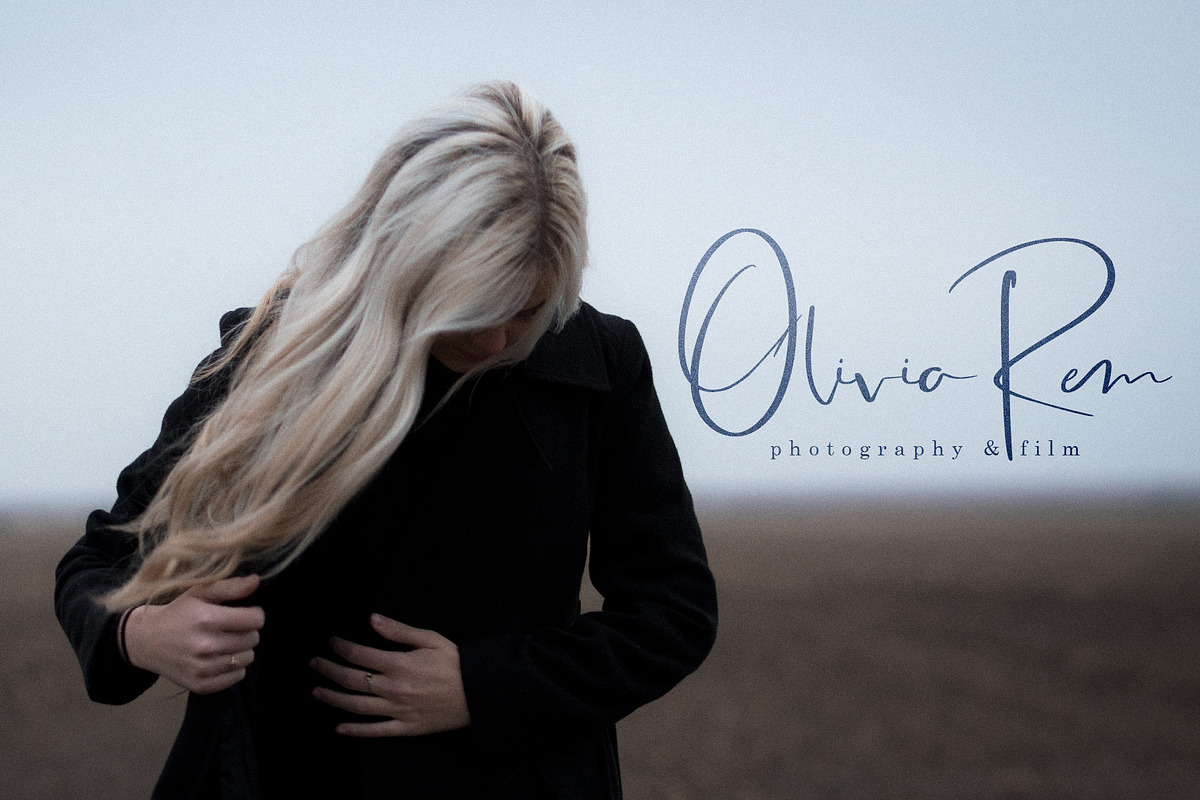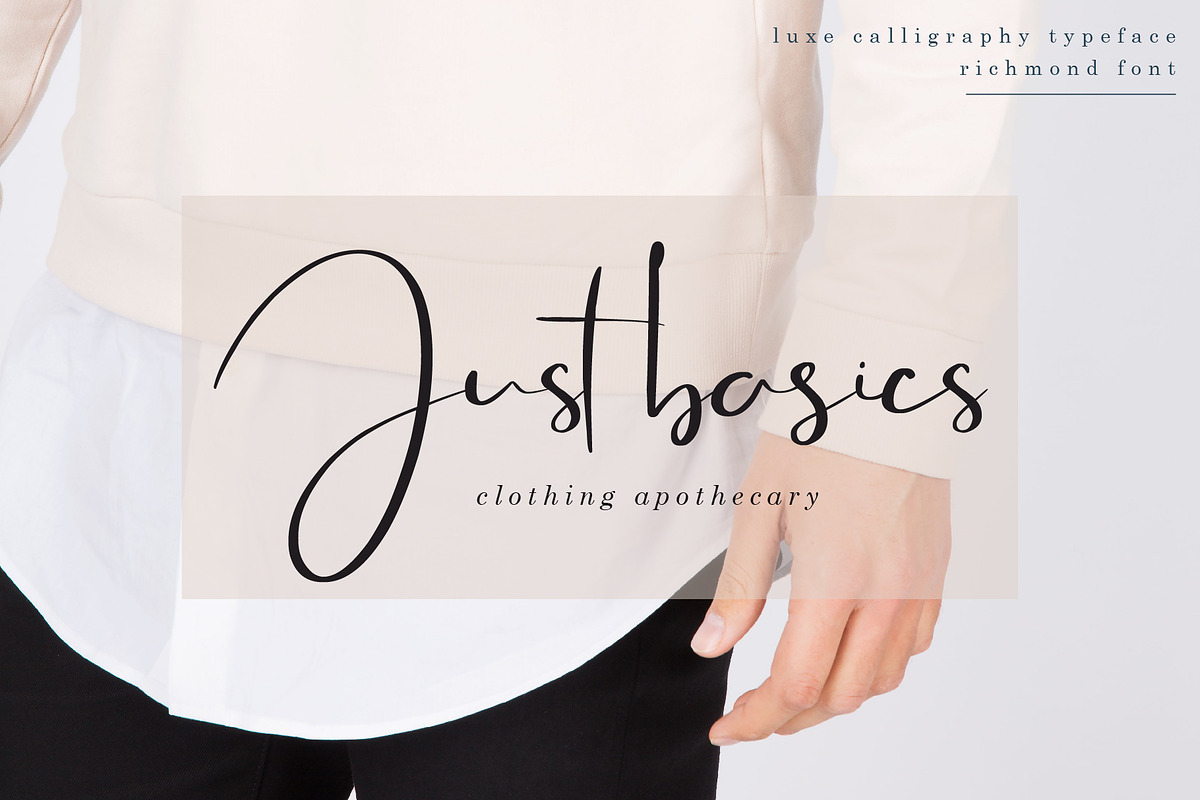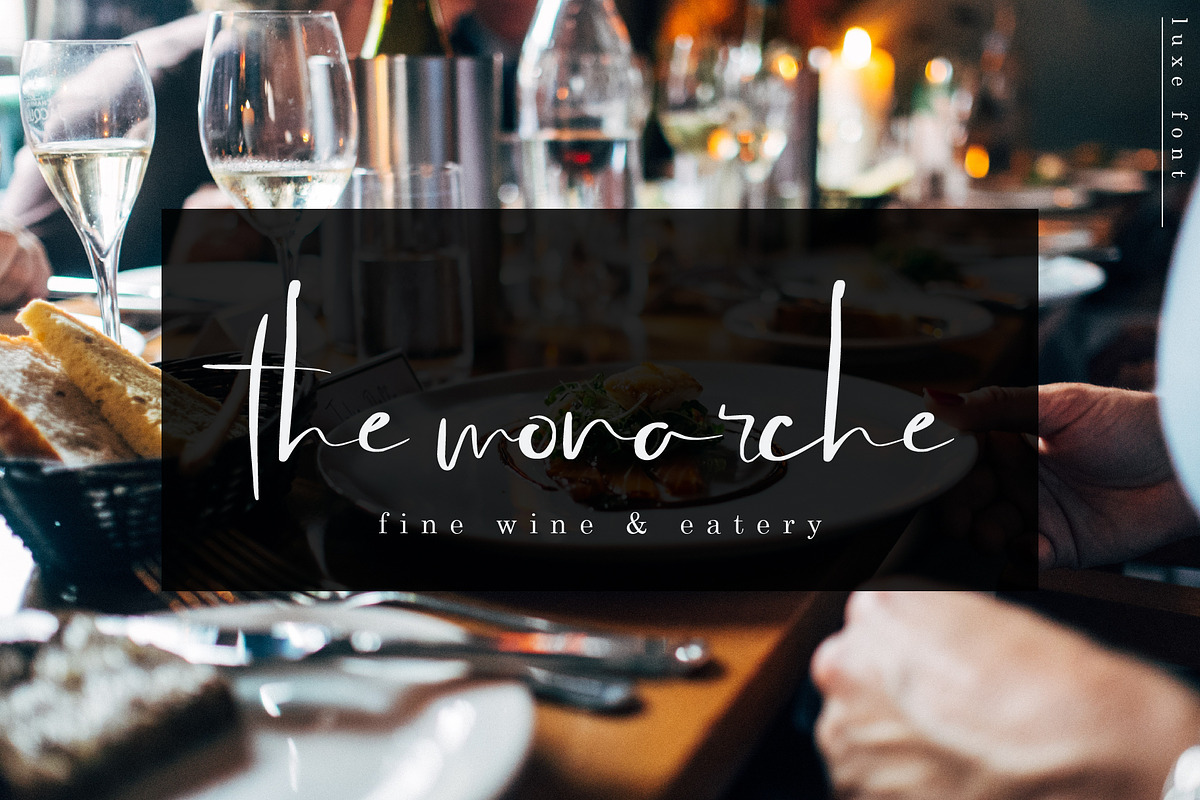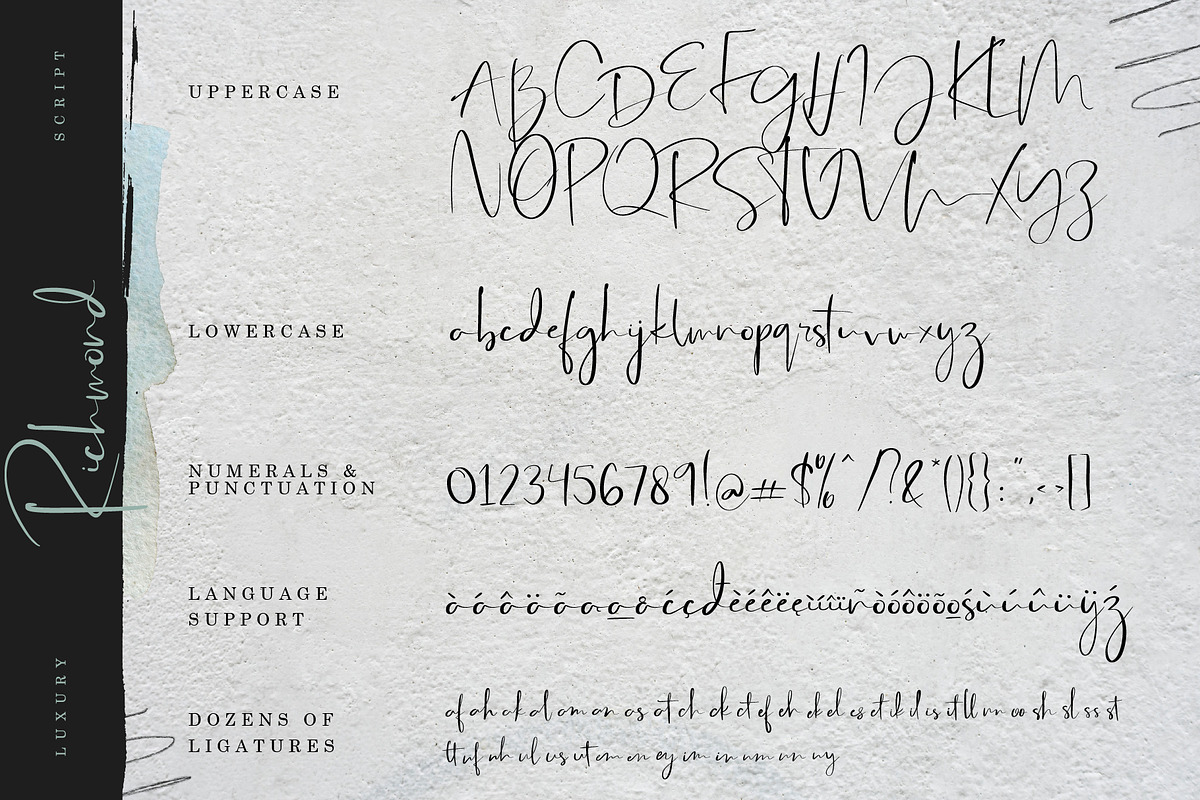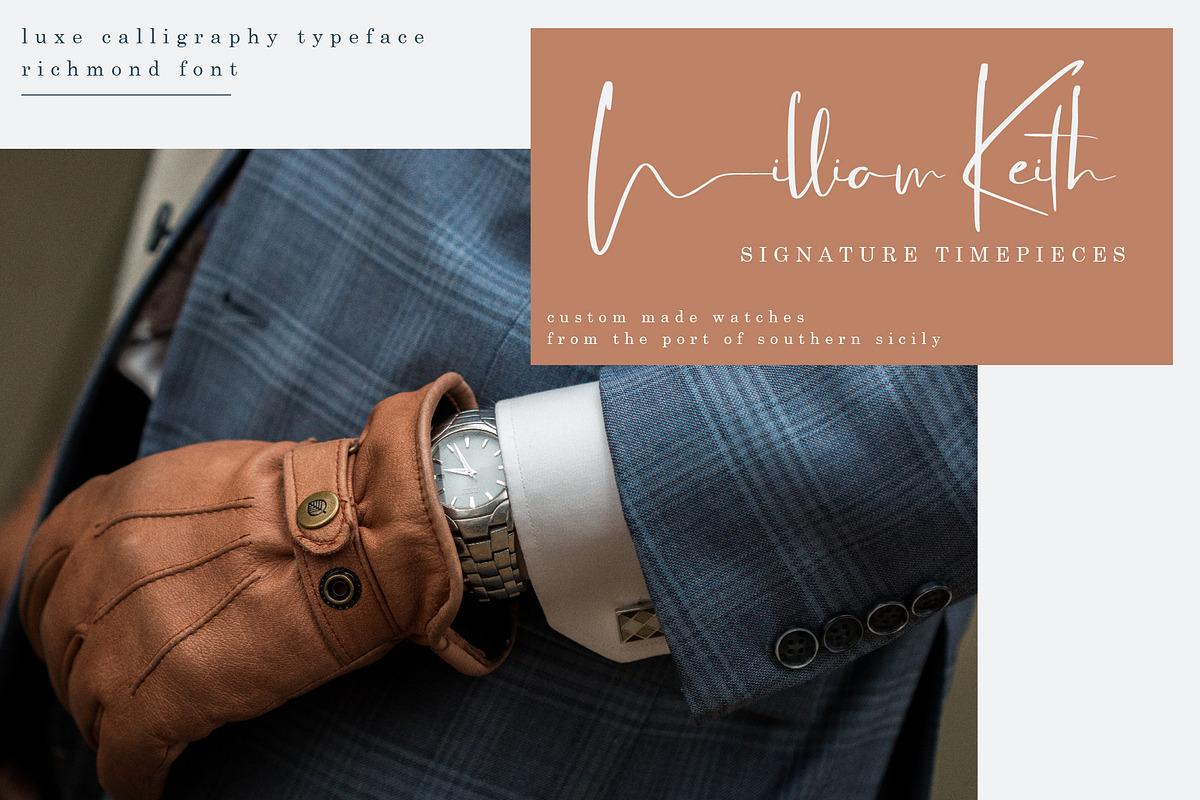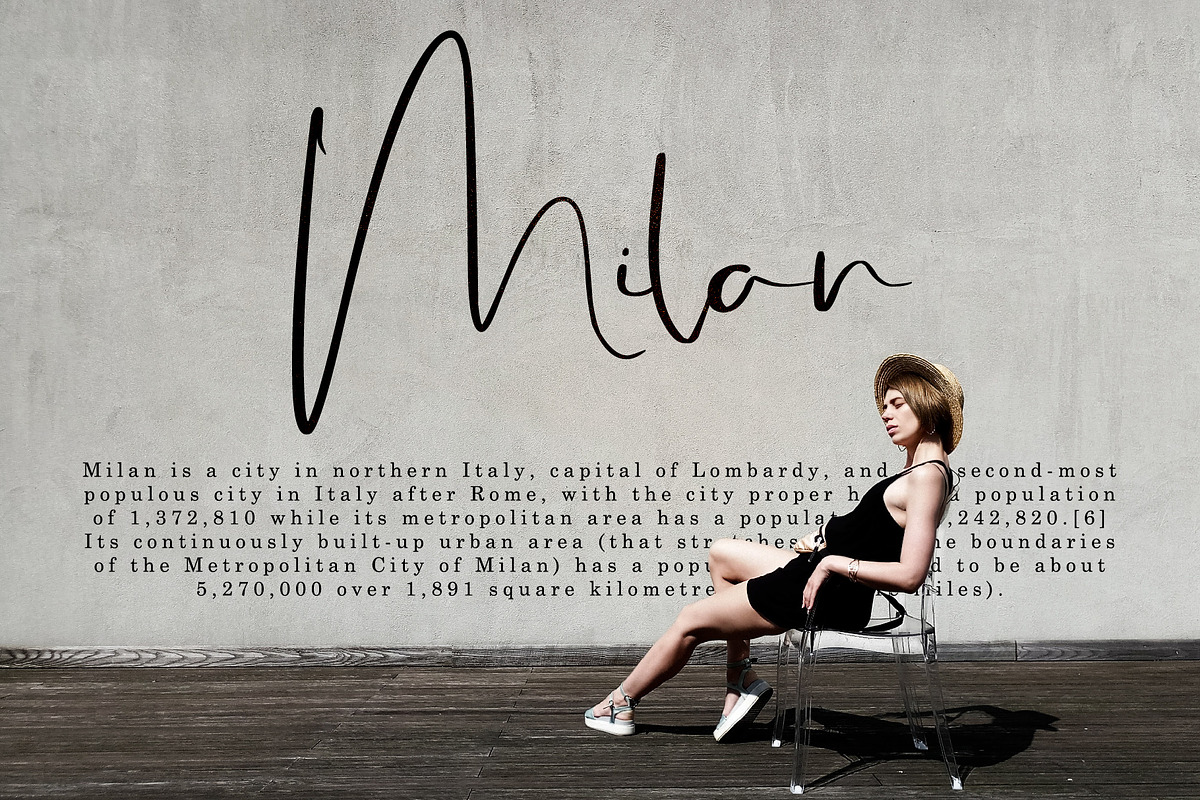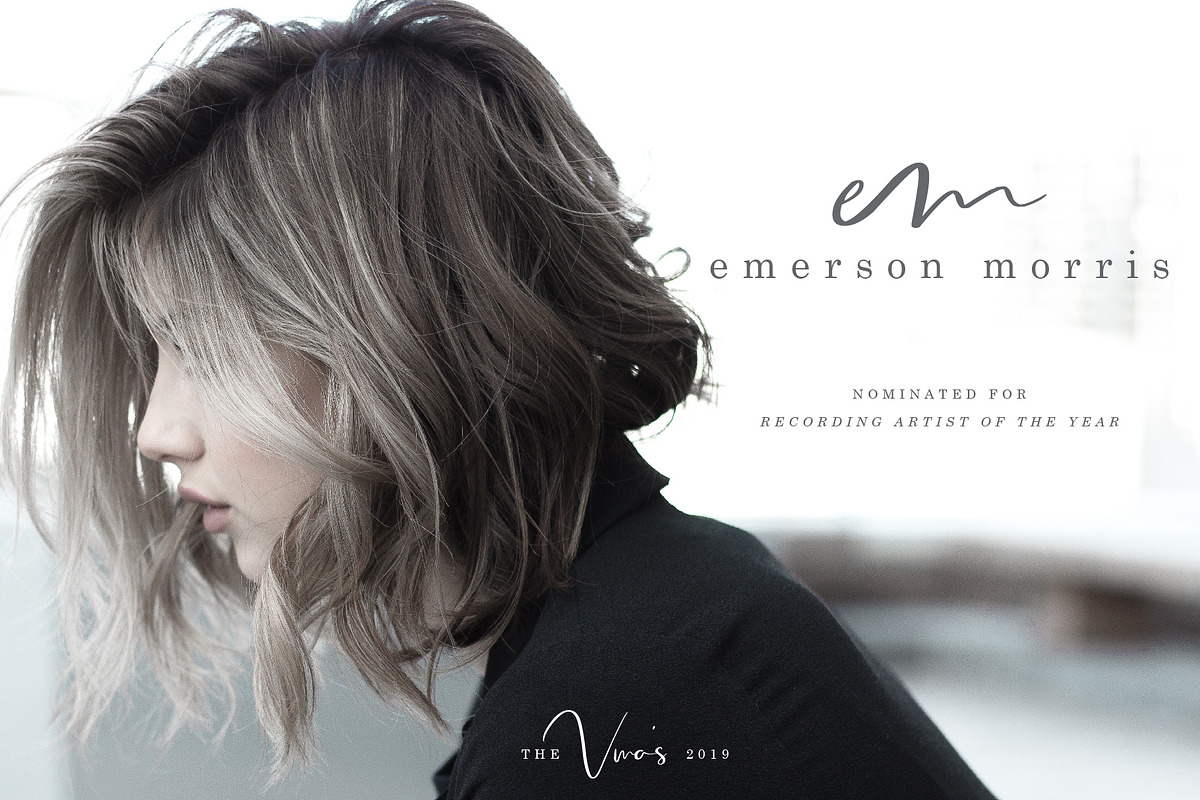
Richmond Luxury Font
ABOUT RICHMOND LUXURY FONT
Richmond is a wet ink textured signature script. This font is perfect for your branding needs! Throw it on logos, prints, websites, and more! Everyone is looking for that next signature style font. Look no further! This beauty will make all of your designs pop.
Over 25 Ligature Sets
Over 100 Bonus Glyphs including International Language Support (ENGLISH, FRENCH, SPANISH, GERMAN, POLISH, ITALIAN, PORTUGUESE)